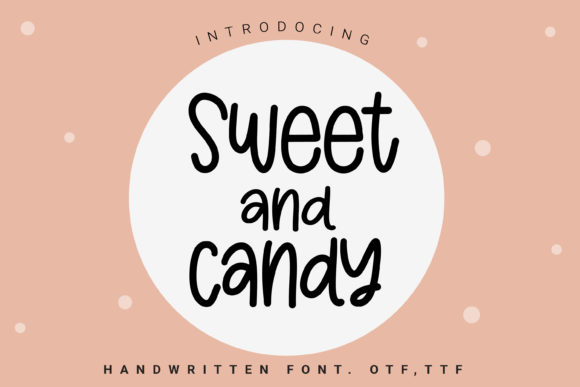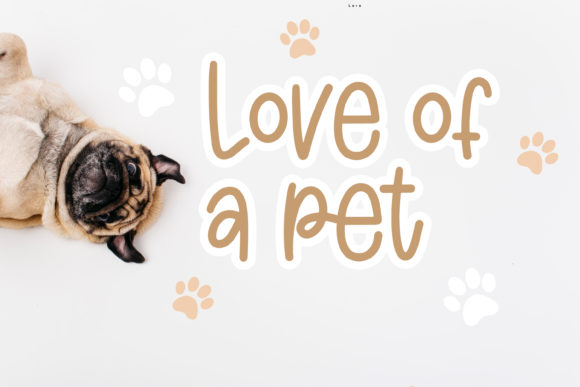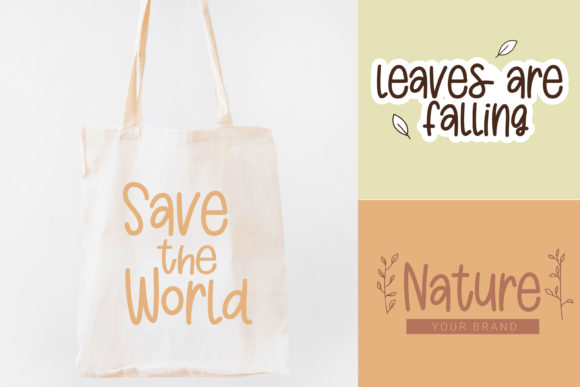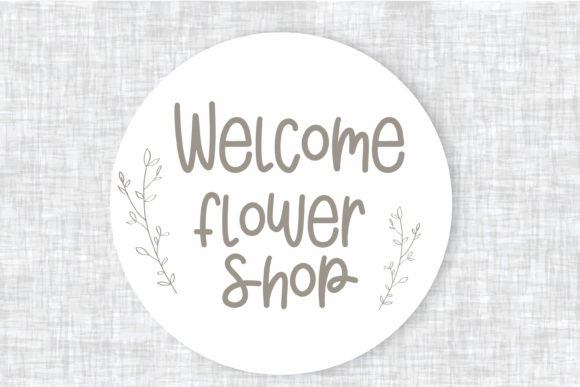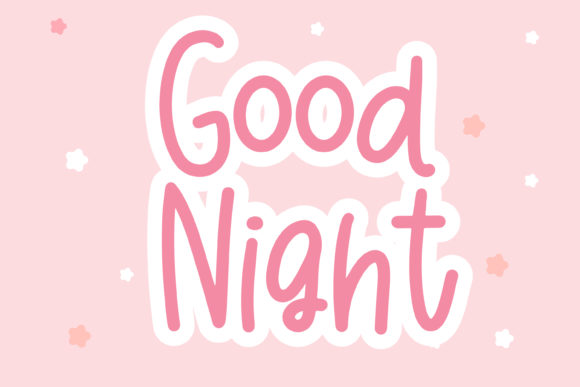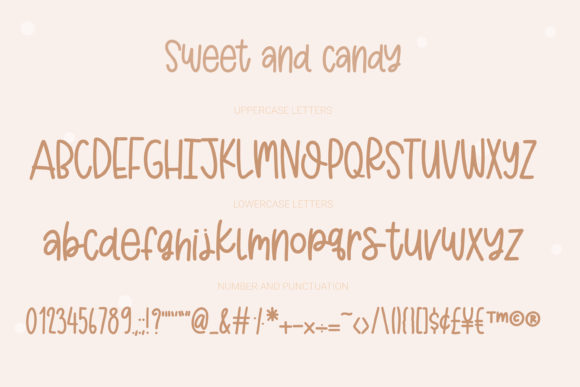
Sweet and Candy Font
About Sweet and Candy Font
Sweet and Candy is a cute handwritten font. It will elevate a wide range of design projects to the highest level, be it branding, headings, wedding designs, invitations, signatures, logos, labels, and much more!